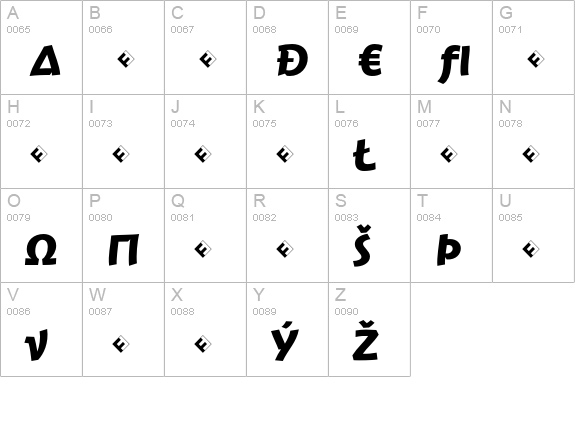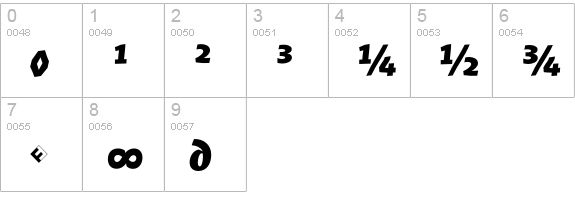
Introducing JambonoTF-BoldExpert, a bold and expertly designed font that will bring a touch of sophistication to your designs. With its strong and confident letterforms, this font is perfect for grabbing attention and making a statement. JambonoTF-BoldExpert is a versatile typeface that is suitable for a wide range of design projects, from branding and advertising to headlines and titles. Its bold and solid strokes exude a sense of power and authority, while its expertly crafted details add a touch of elegance and refinement. One of the most appealing aspects of JambonoTF-BoldExpert is that it is completely free to use. That's right, this high-quality font is available for download at FontsMarket.com, allowing you to enhance your designs without breaking the bank. Whether you're a professional designer or a hobbyist, JambonoTF-BoldExpert offers a wealth of possibilities. Its extensive character set includes uppercase letters, lowercase letters, numerals, punctuation marks, and special characters, ensuring that you have all the tools you need to bring your creative vision to life. The legibility of JambonoTF-BoldExpert is exceptional, making it suitable for both print and digital applications. Its clean and well-defined letterforms ensure that your message is communicated clearly and effectively, whether it's on a billboard, a website, or a business card. So why wait? Download JambonoTF-BoldExpert today from FontsMarket.com and add a touch of boldness and sophistication to your designs. With its exceptional quality and the fact that it's freely available, this font is a must-have for any designer looking to make a lasting impression.